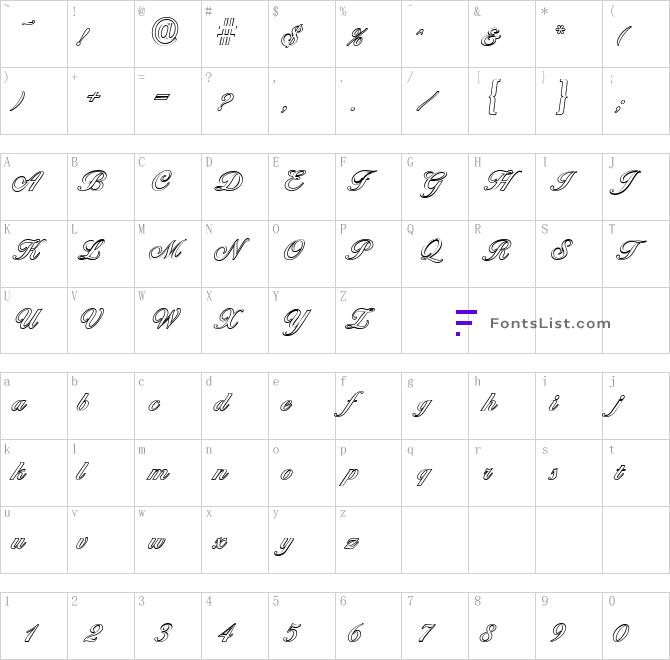
- Font Name:BallantinesOutline-Medium
BallantinesOutline-Medium-Regular.ttf is a very beautiful artistic font, BallantinesOutline-Medium-Regular.ttf is widely used in the design and printing of various books and pictures,BallantinesOutline-Medium-Regular.ttf has a strong visual impact,BallantinesOutline-Medium-Regular.ttf is a commonly used font in newspapers, magazines and books, and is used in posters, e-commerce Poster design, store design, logo design, font design and other fields.BallantinesOutline-Medium-Regular.